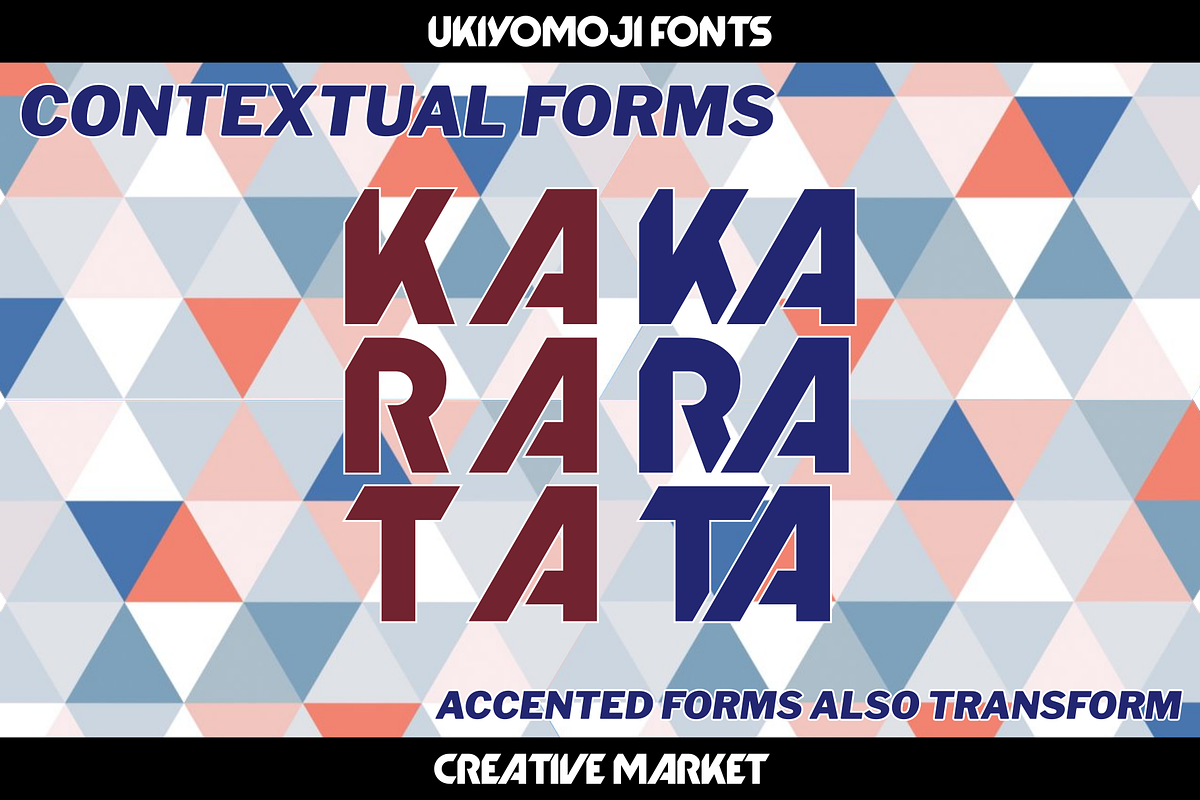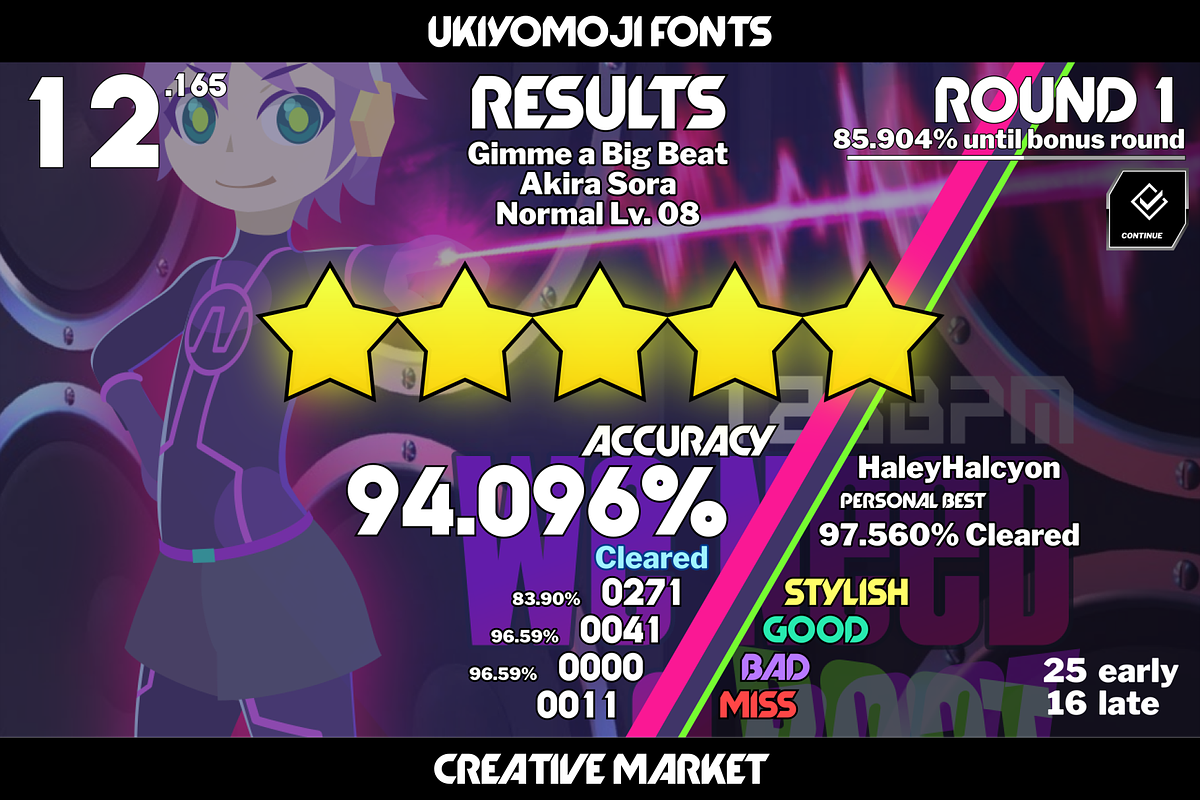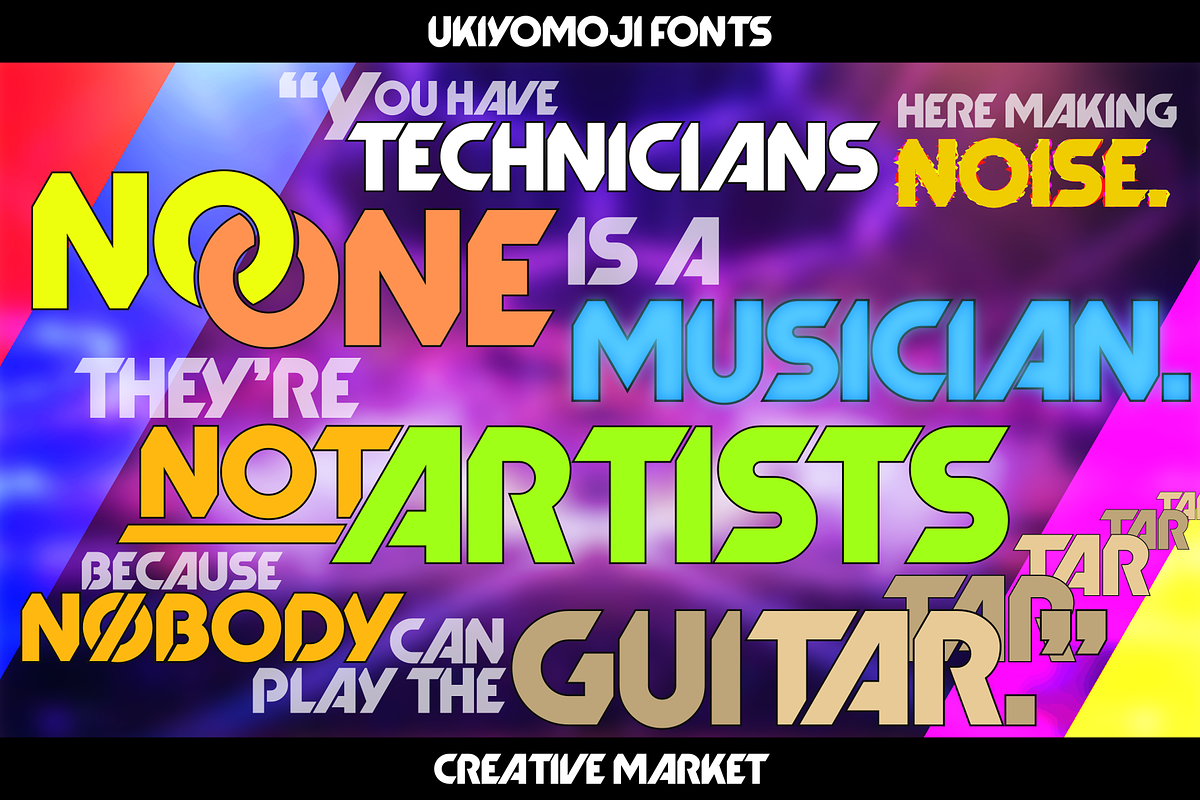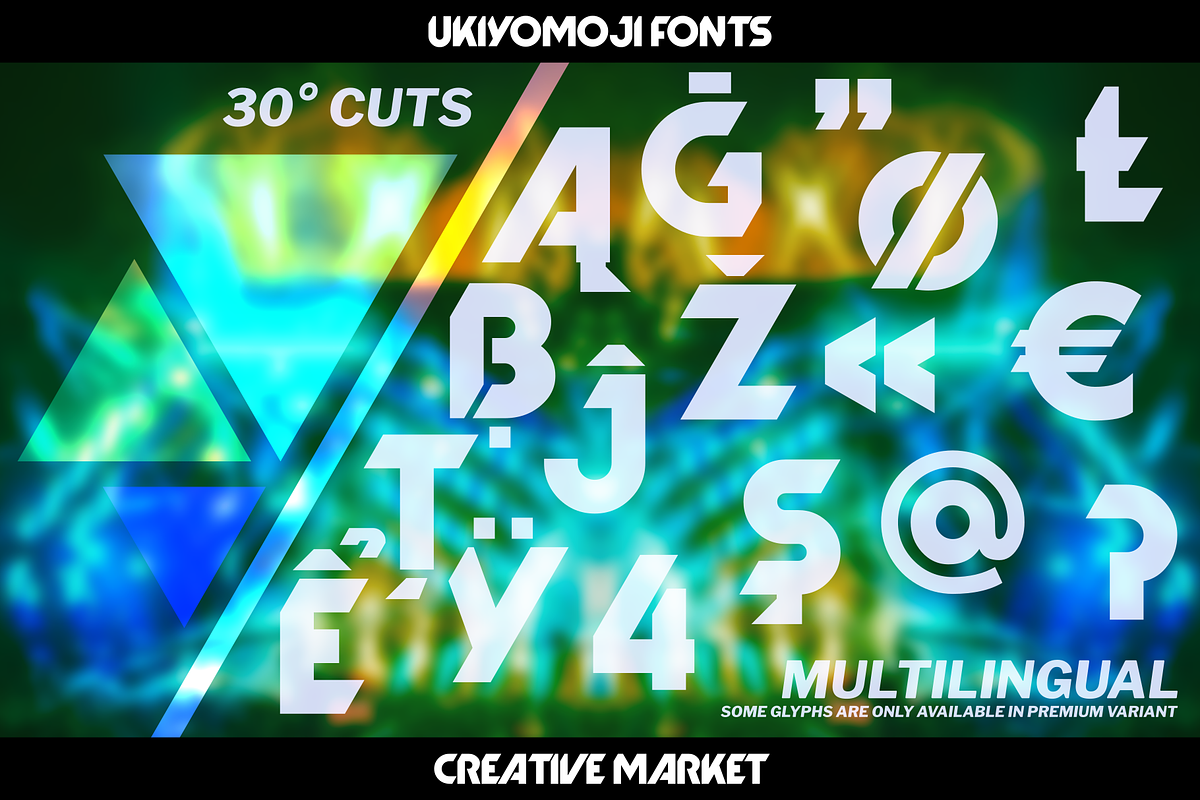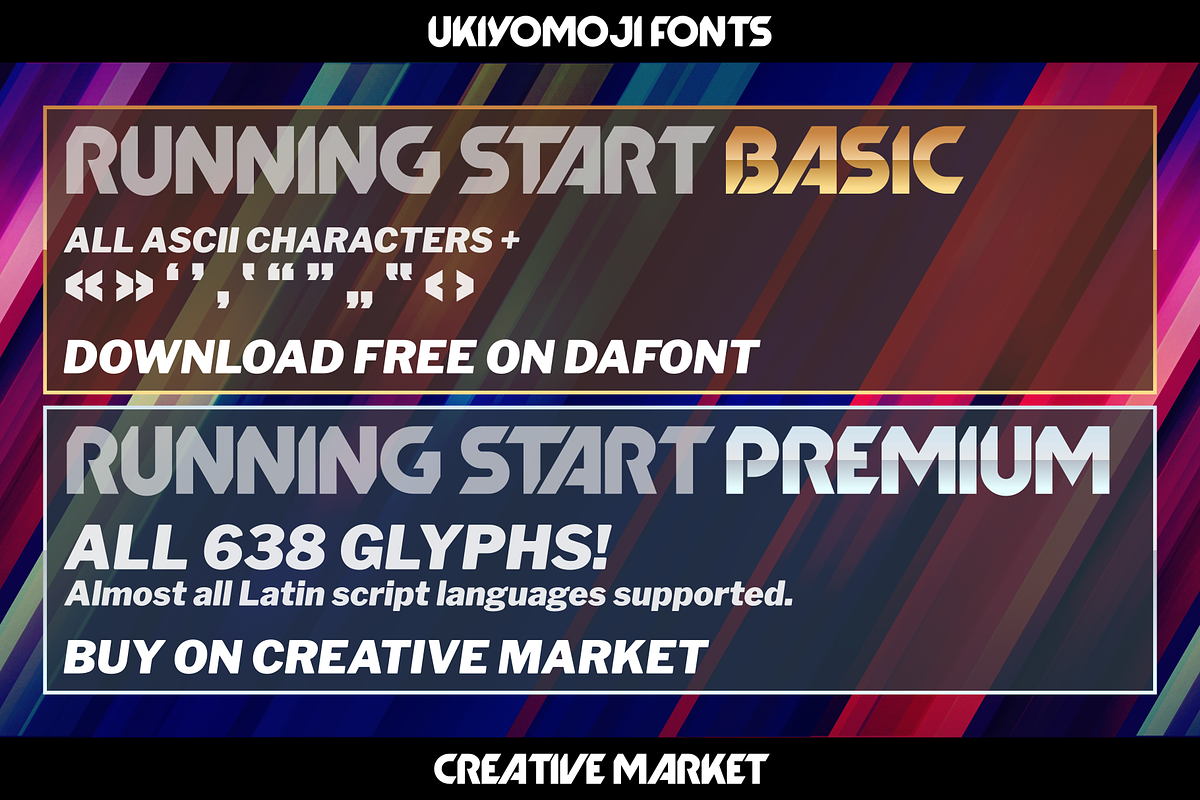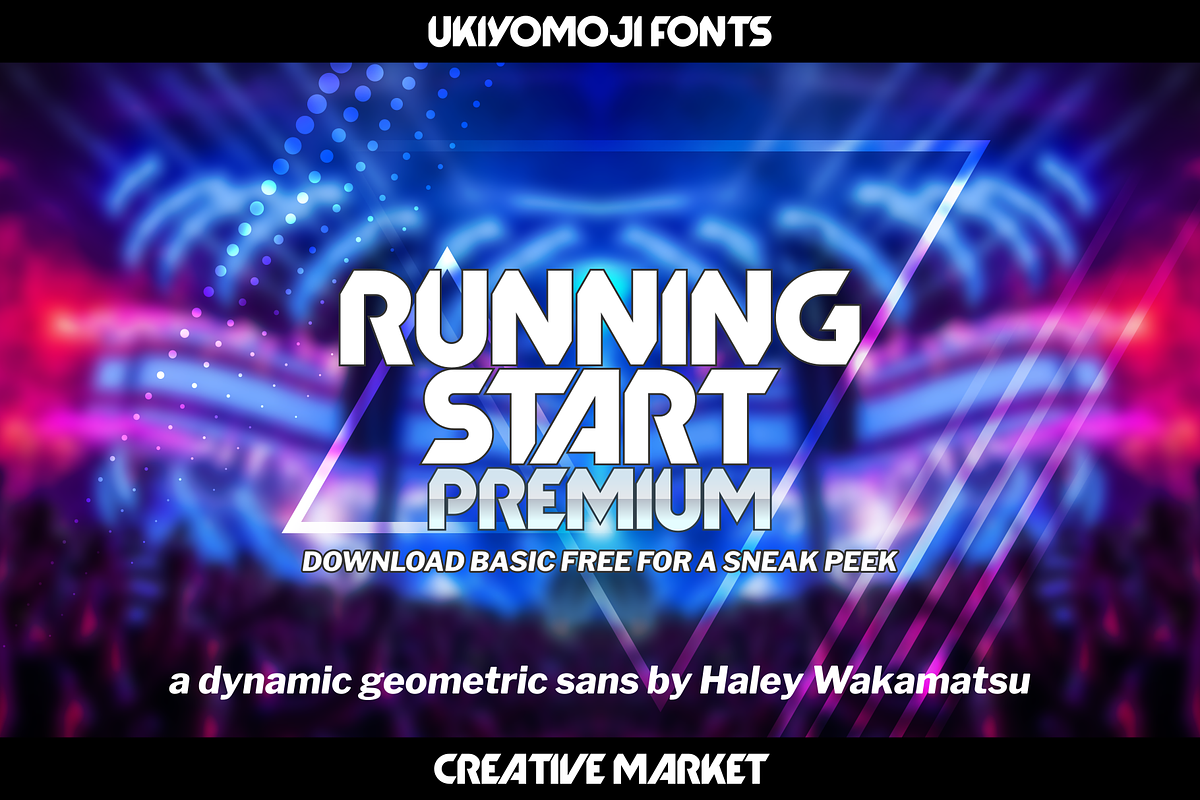
Running Start: Dynamic Geo Sans
Baaam! Here comes Running Start, a bold, monoline display font with 30° slanted cuts, contextual forms, and an absurd amount of multilingual support.